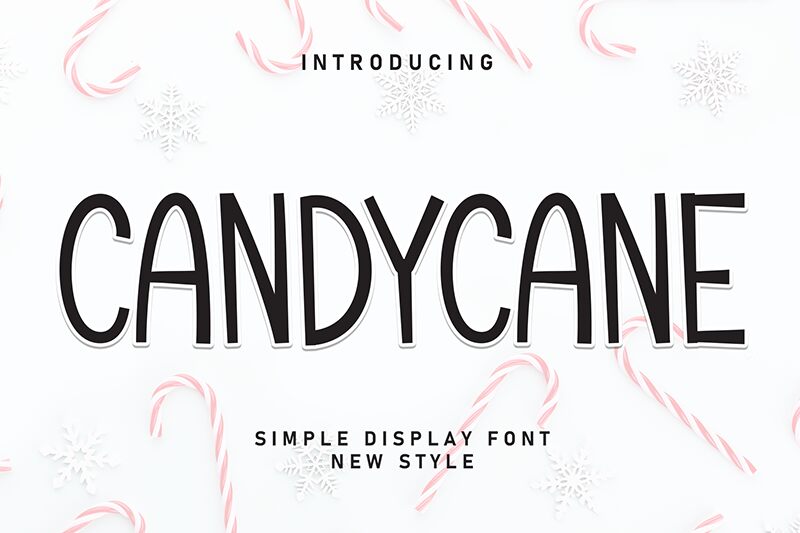
Candycane font by scratchones is a free font inspired in the playful nature of its sweet namesake. This whimsical, inviting font incorporates a modern twist while maintaining a nostalgic festive feel. Candycane has an unmistakable jovial vibe set to bring a light-hearted touch wherever it's used.
This happy font has a holiday-themed typographic style that sets a visually cheerful mood. However, Candycane doesn’t have to be limited to holiday use as it can find purpose in the playful projects promoting candies, games, or whatever invites a joyful spirit.